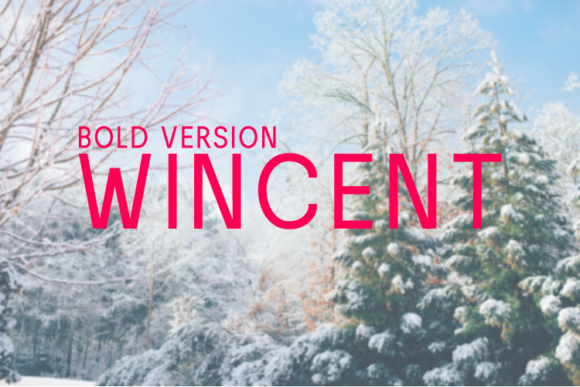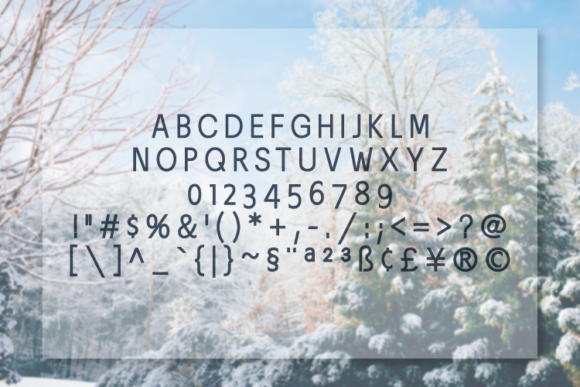
HomeSans Serif FontsWincent Bold Font Sans Serif Fonts Wincent Bold Font FacebookXPinterestWhatsApp Wincent Bold Fonts 1 of 2 About Wincent Bold Font Wincent is a geometric font family with an incredibly simple and elegant style. It features soft terminals and will give any design project a friendly and expressive look! DOWNLOAD NOW People also explored Pink Tinge Font Earworm Baritta Font Rushalna Font Supra Rounded Carlotte Font Morning Routine Font Bouncy Font Sionsel Font 482 0 TagsWincent Bold Font Previous articleWincent Extra Bold FontNext articleWincent Semi-Bold Font LEAVE A REPLY Cancel reply Comment: Please enter your comment! Name:* Please enter your name here Email:* You have entered an incorrect email address! Please enter your email address here Website: Save my name, email, and website in this browser for the next time I comment. Personal Use Free Elliane Personal Use Free Read more about this font Handayani Personal Use Free Read more about this font Quentin Personal Use Free Read more about this font Squariess Personal Use Free Read more about this font BLOG Fonts That Capture the Spirit of New York City New York City is more than just a place—it’s an experience, a rhythm, a visual language... How to Install and Use Fonts on Windows, macOS, and Web Projects Top 10 Handwritten Fonts That Elevate Your Designs To increase your work productivity, choose the most readable fonts.